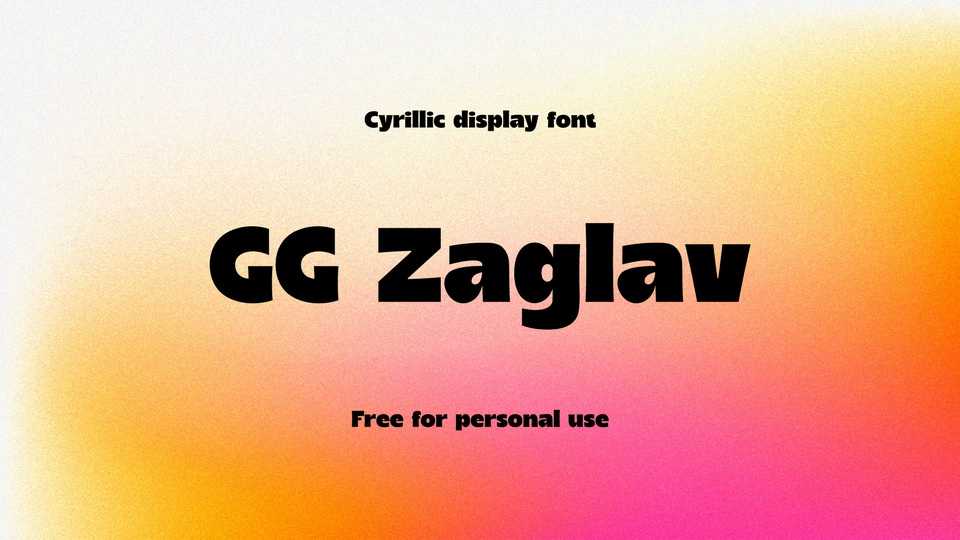
Download GG Zaglav font, a modern display typeface with a strong and powerful appearance. GG Zaglav is a typeface designed for editorial and display use.
Designer: Grigorij Gushchin